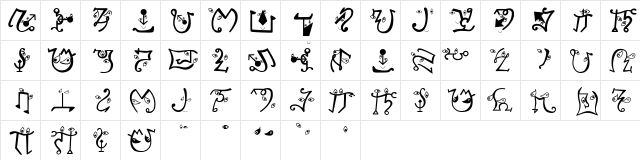
ManiaK Regular Font Preview
ManiaK Regular
ManiaK Regular Font Details
Design Context for ManiaK Typeface
ManiaK is a composed and adaptable typeface that performs quietly and consistently across a wide range of design contexts.